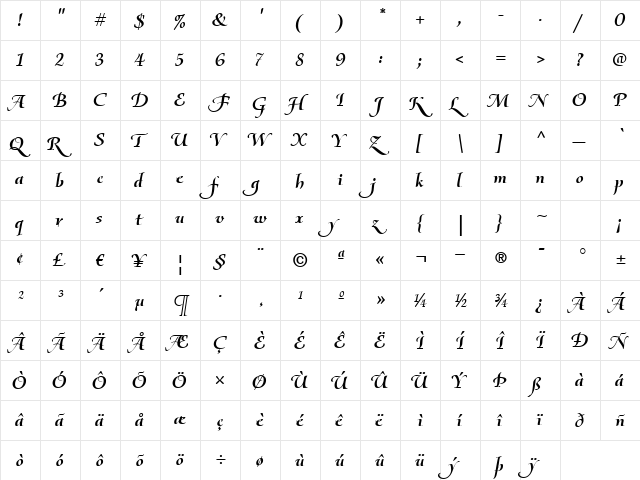
FlorinaUT BoldItalic
Design Context for FlorinaUT Typeface
FlorinaUT takes a measured approach to typography — its balanced proportions and neutral character make it a reliable workhorse for both digital and print work. The slanted form adds forward momentum and visual energy. The heavy weight commands attention and anchors typographic hierarchies.